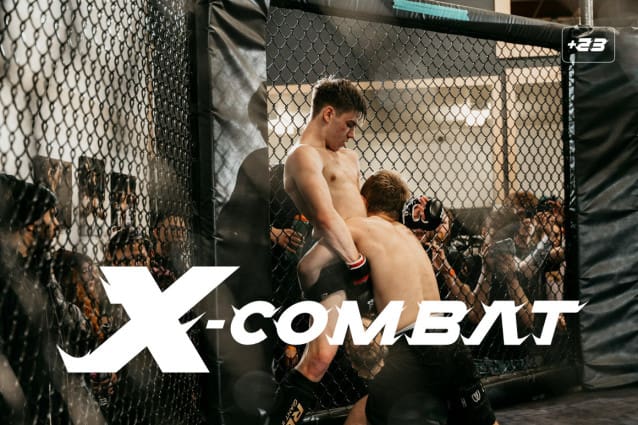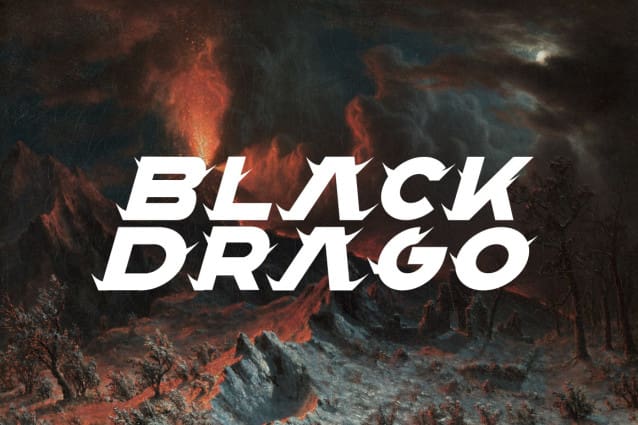
Fear Logo Fires Italic Font
Fear Logo Fires Italic Font, It would be a perfect choice to design posters, affiches, logos, t-shirt and magazine prints, eye-pleasing typographic designs and more.